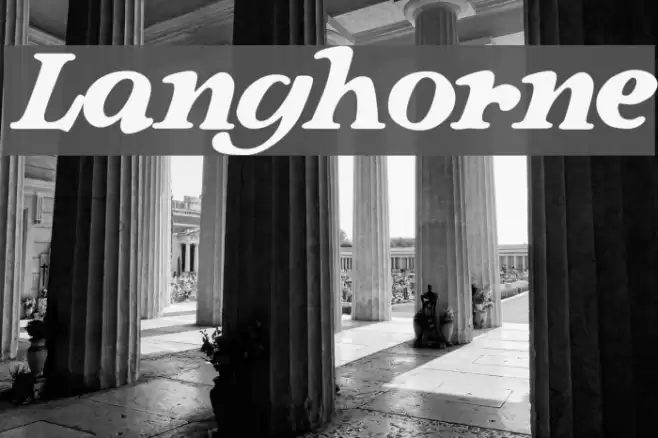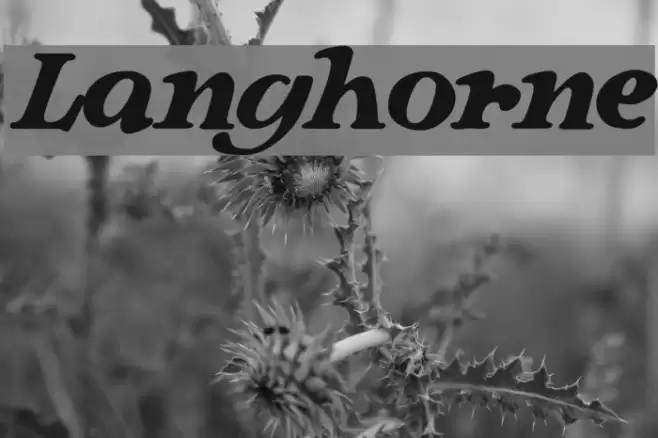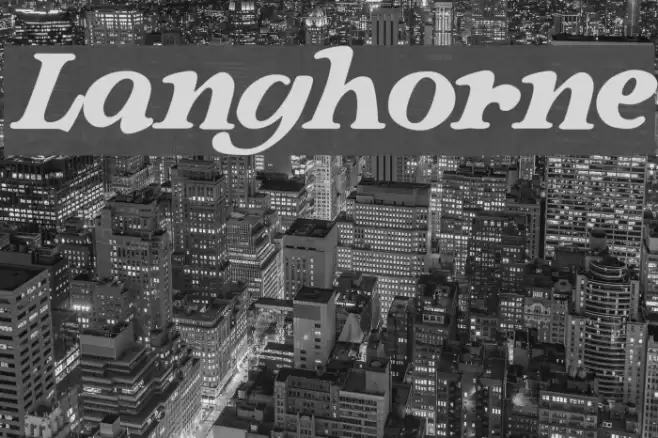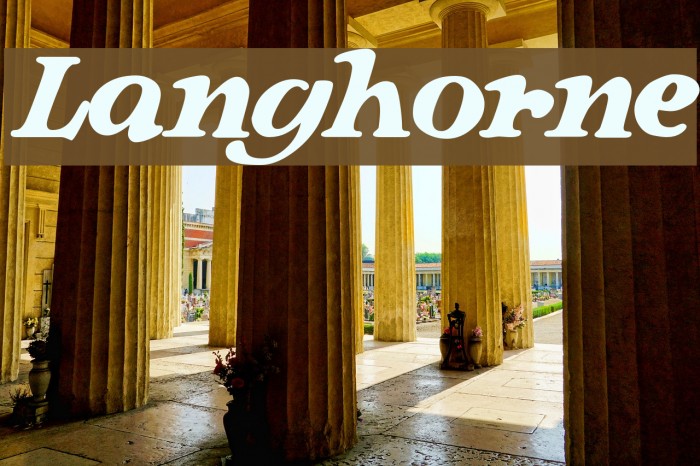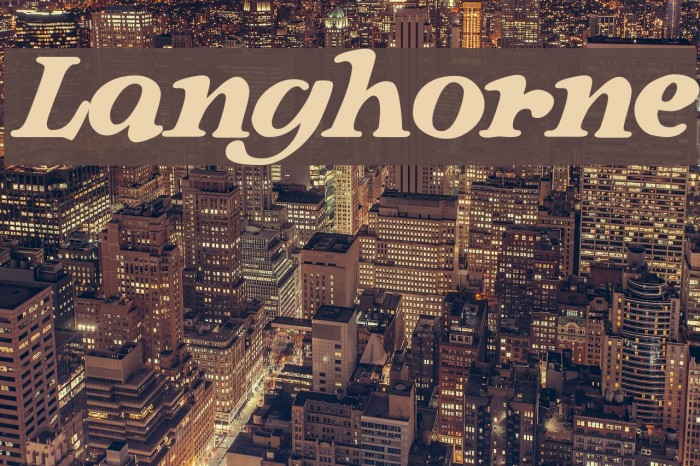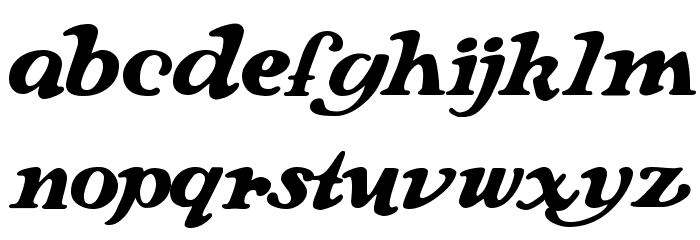
Langhorne Font
Langhorne Description
This font features a bold and dynamic script style with a strong emphasis on cursive elements. The uppercase letters are elegantly slanted, giving a sense of movement and fluidity. The lowercase letters maintain a consistent flow, with smooth curves and a slightly exaggerated stroke that enhances readability. The overall appearance is both classic and sophisticated, making it suitable for a variety of design applications. The font's unique character is further highlighted by its high contrast in stroke thickness, which adds depth and dimension to the text.
A bold, dynamic script font with elegant cursive elements and high contrast from Decorative fonts.
- Overall Style: Classic